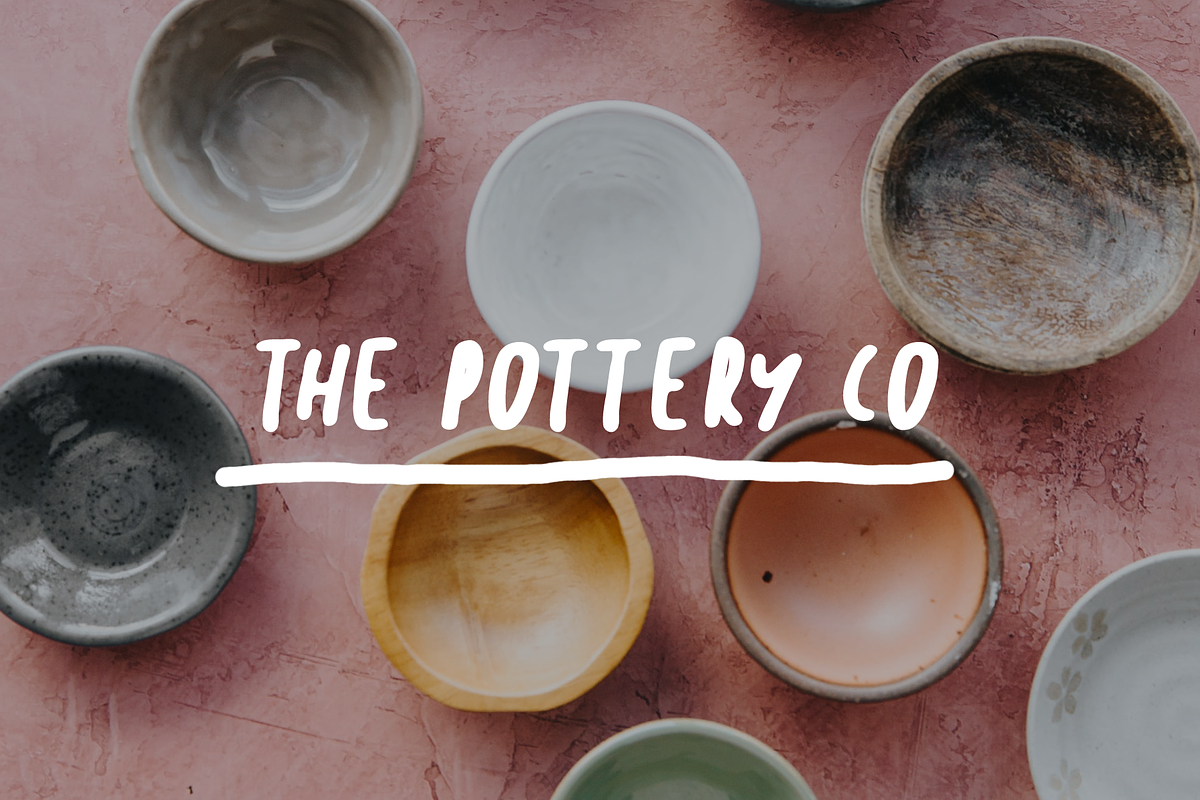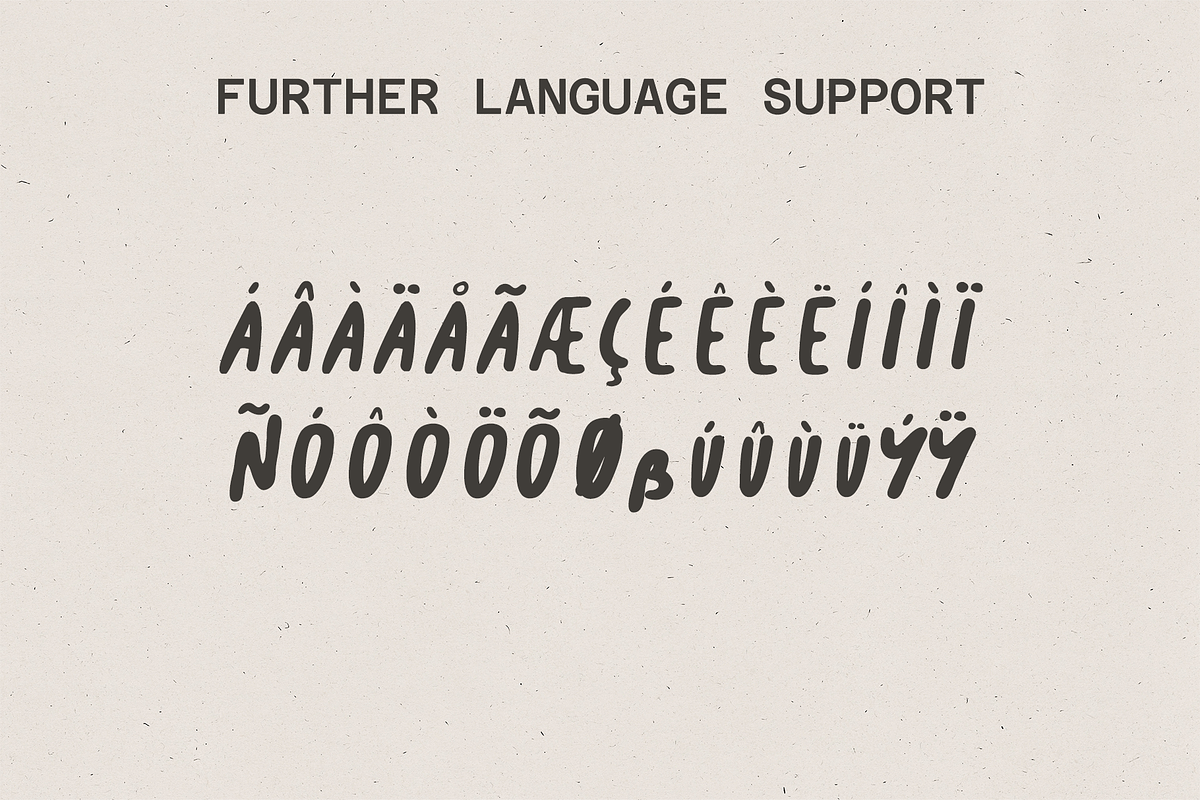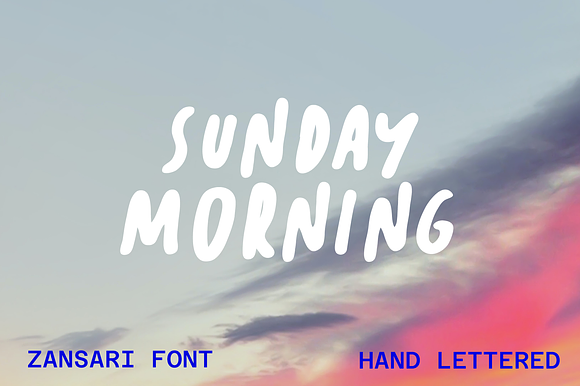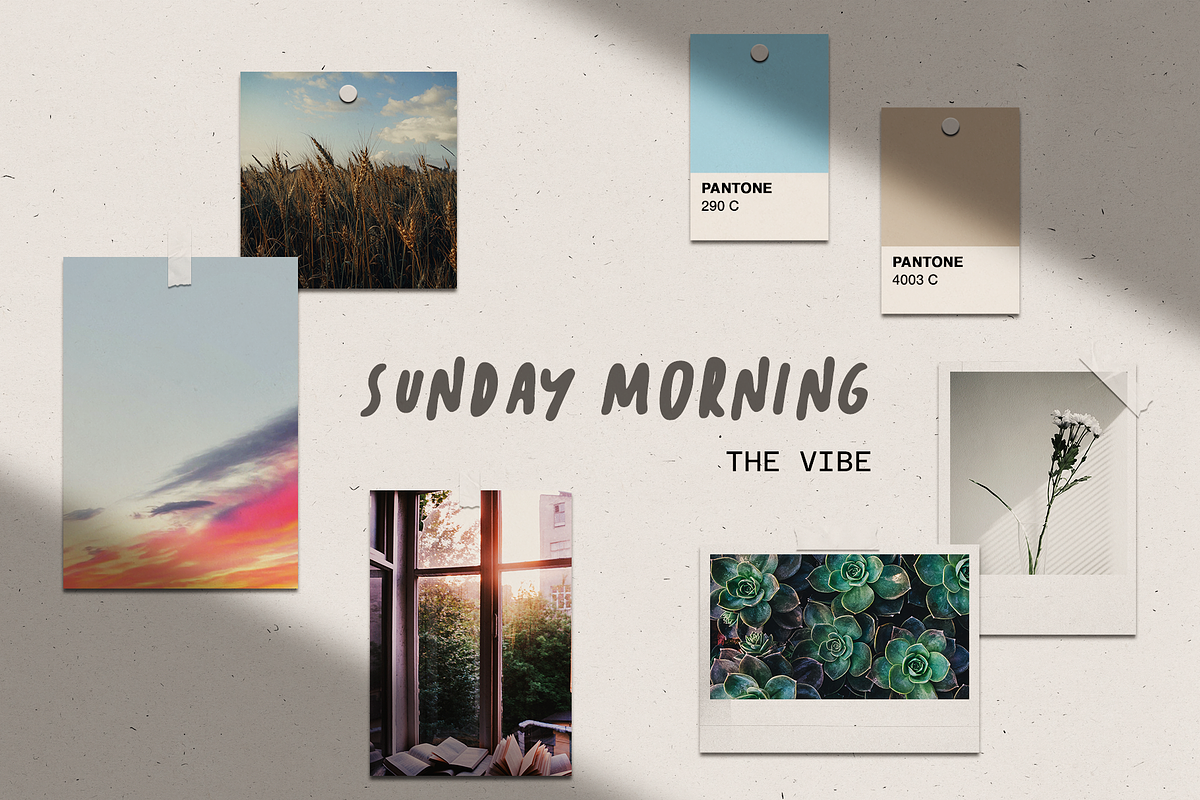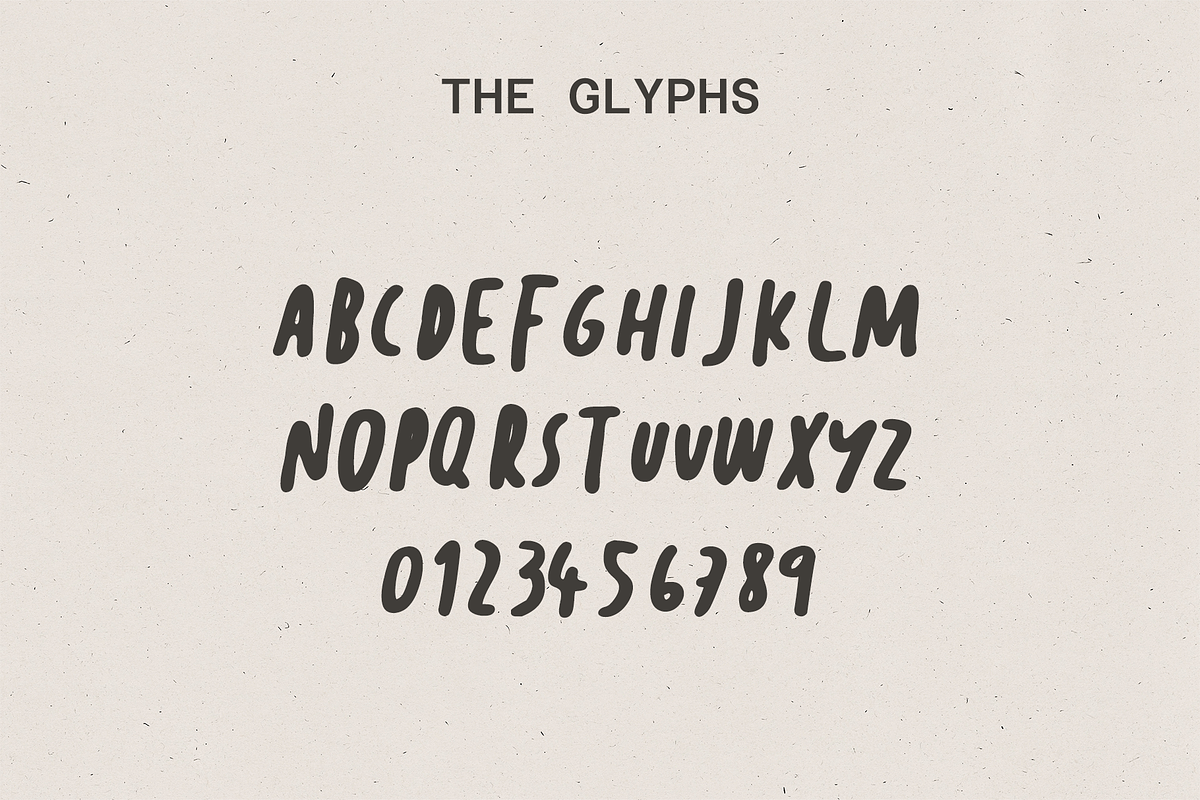
Sunday morning hand-drawn font
Sunday morning is a casual brush font with plenty of character. The characters were hand painted, then scanned and vectorised into a digital font file.
This font would be perfect for advertisements, logos and crafts like quote posters. This has also been quite a popular blog font
- The characters were hand painted, then scanned and vectorised into a digital font file.